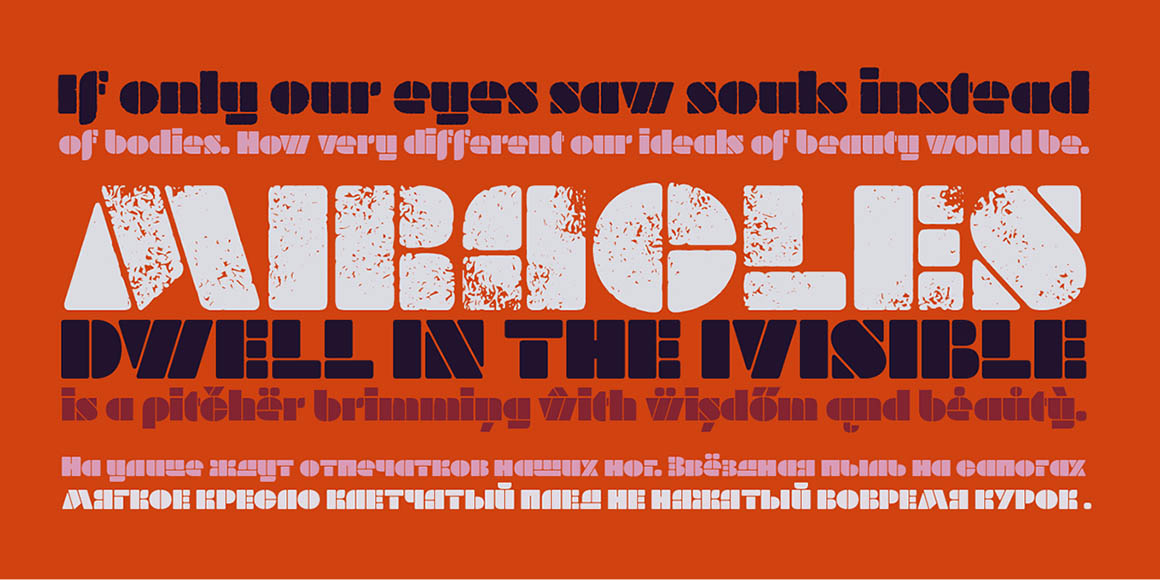
Milka Font
Milka Font Family is designed by lettersoup typefoundry, a professional designer from Germany. Milka is an 8-style stencil font family created by a team of designers born within the span of almost 70 years. It is a digital expansion on an alphabet designed in 1979 by the famous Bulgarian artist Milka Peikova.
The basic Milka font is a clean stencil design, while the Aged, Baked, Brittle, Crunchy, Dry and Soft styles are inspired by stencil and letterpress techniques and expand the usefulness by adding various degrees of warmth or roughness. The Milka font family has extensive Latin, Cyrillic and Greek character set support including localized forms for Russian and Bulgarian as well as numerous OpenType features.